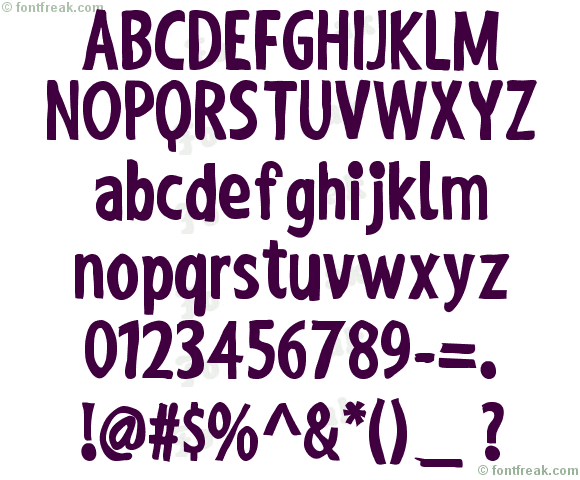
ShakyHandSomeComic-Bold
ShakyHandSomeComic
ShakyHandSomeComic-D
About ShakyHandSomeComic-Bold
ShakyHandSomeComic-Bold is a captivating display font designed by Manuel Viergutz, falling under the category of decorative typography. This font features a unique, playful style that resembles hand-drawn lettering, making it an excellent choice for projects that aim to convey a sense of whimsy and creativity. Its bold stroke weight provides a strong presence, while the uneven, shaky lines evoke a sense of spontaneity and fun, making it visually engaging.
The font's visual characteristics include a lack of uniformity in its line thickness, which adds to its organic feel. The spacing between characters is moderately tight, contributing to a cohesive look that can still maintain legibility. This makes ShakyHandSomeComic-Bold suitable for various applications where a lively touch is desired.
Some ideal use cases for this font include designing eye-catching movie posters, where the boldness can grab attention; creating vibrant restaurant menus that convey a fun dining experience; or crafting playful birthday invitations that set the tone for a celebration. Additionally, it is perfect for social media graphics aimed at engaging younger audiences or for children's book covers where a friendly and approachable aesthetic is essential.
What sets ShakyHandSomeComic-Bold apart is its ability to infuse personality into designs while remaining highly readable. Its charmingly imperfect style invites creativity, making it a standout choice for those who wish to leave a lasting impression.